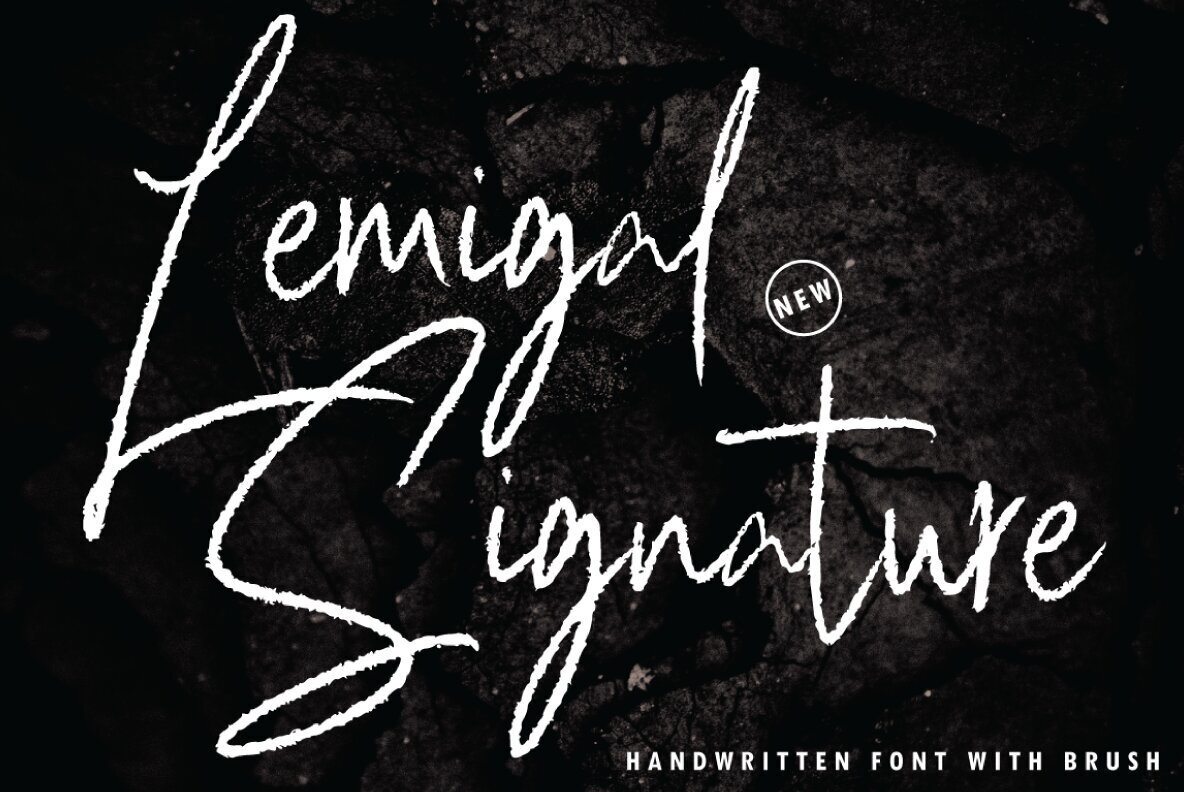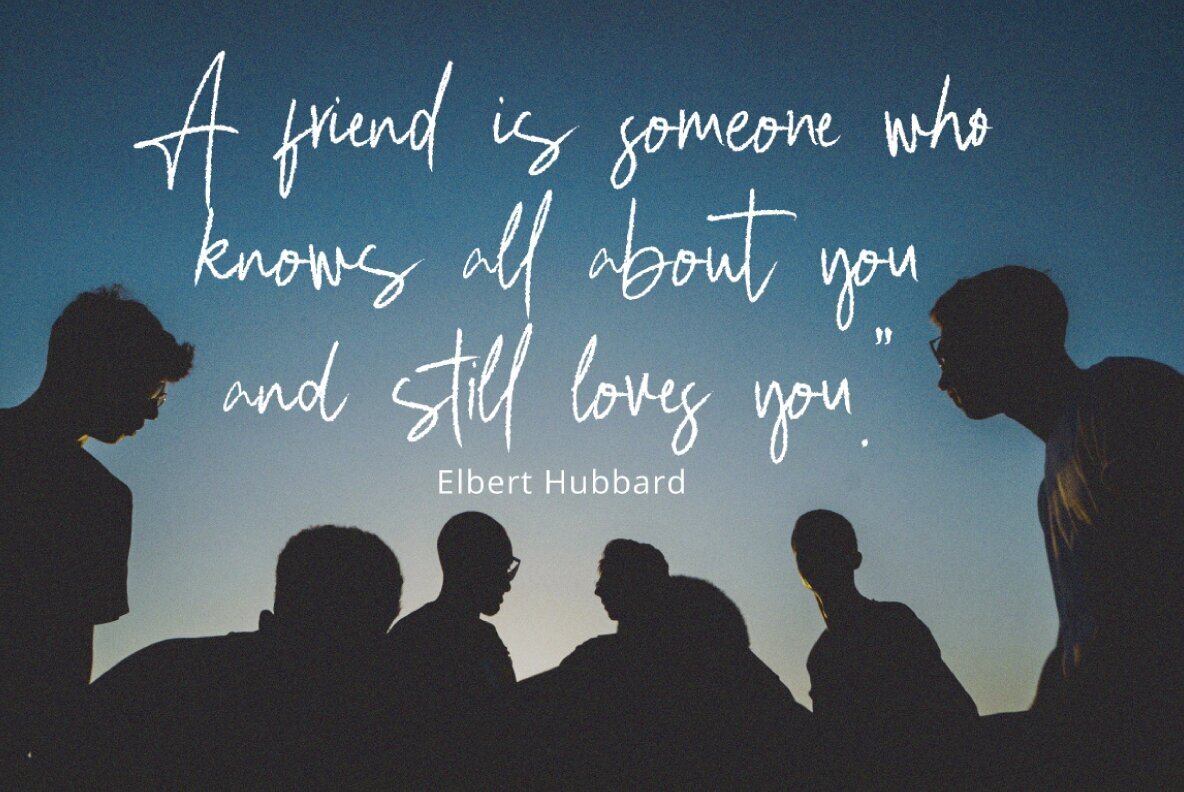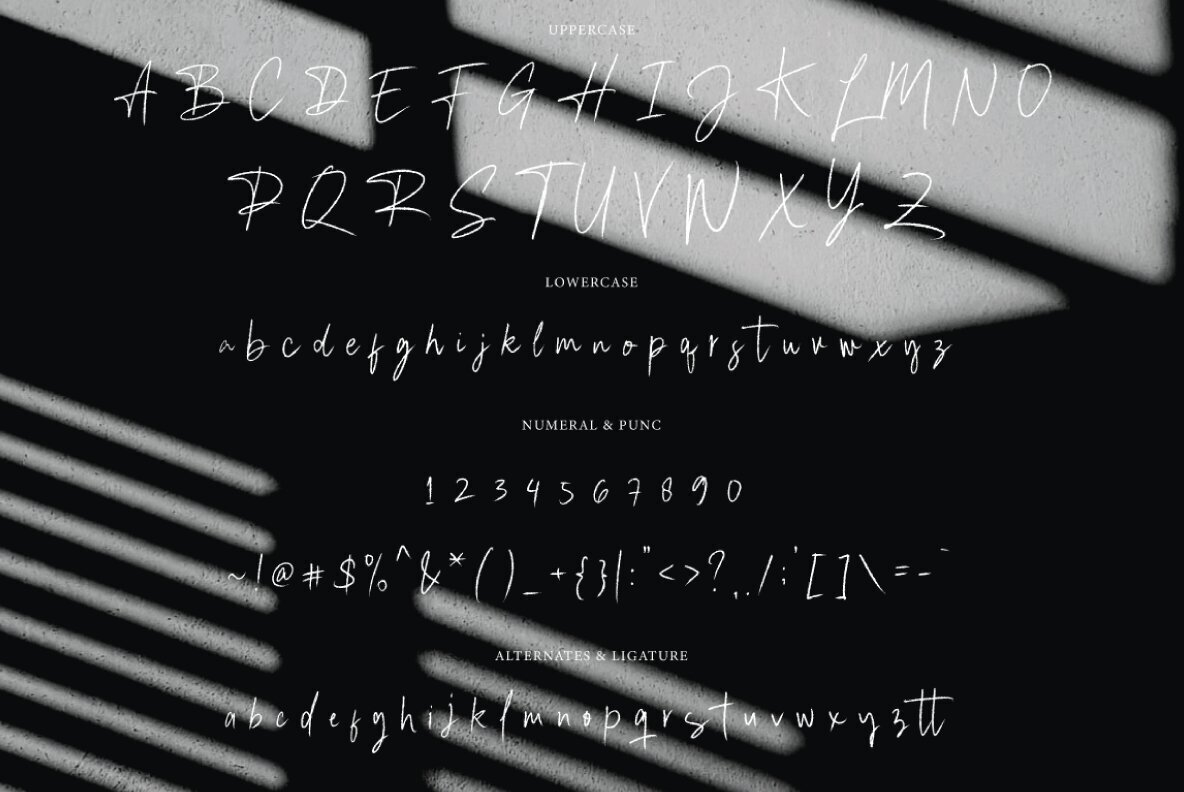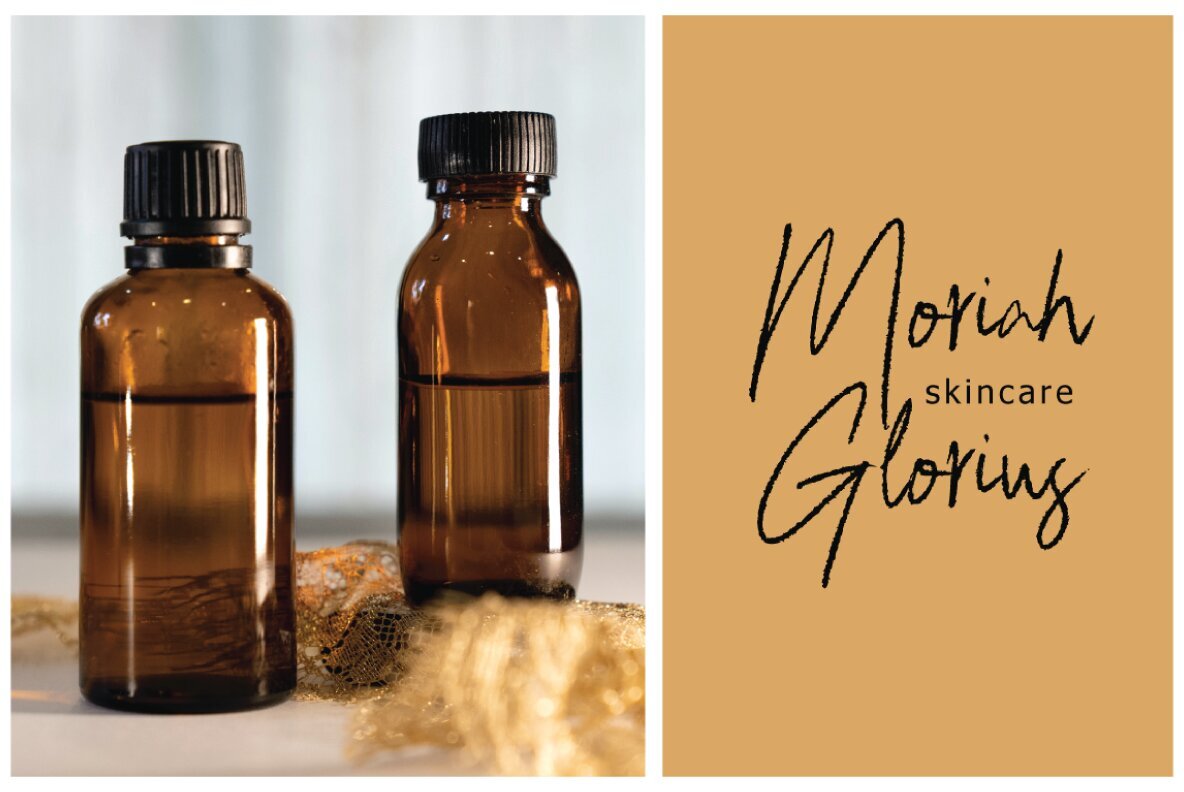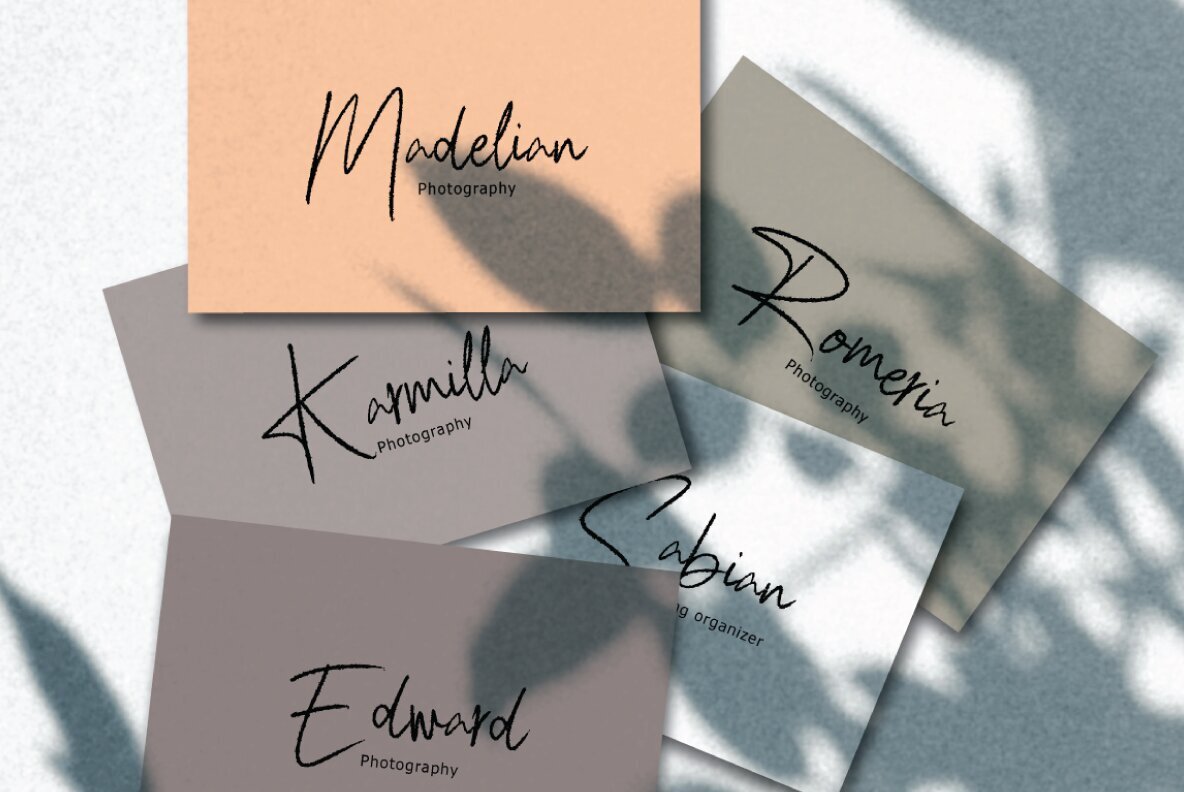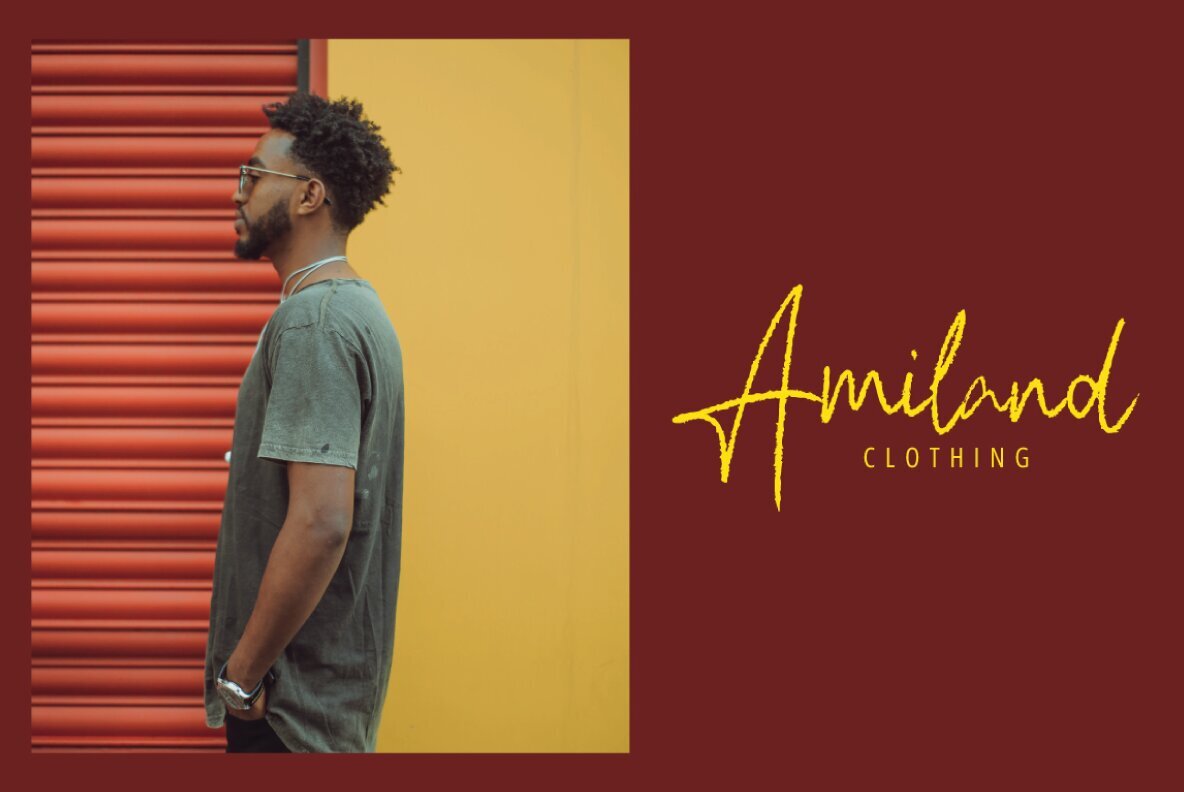
Lemigal Signature Font
Discover the elegance of Lemigal Signature Brush, a handmade cursive font that encapsulates beauty and sophistication. Perfectly suited for greeting cards, branding materials, business cards, and posters, this font infuses a personal touch with its decorative characters and dynamic baseline. With over 200 glyphs, Lemigal Signature Brush allows you to explore endless creative possibilities. Whether you're using Adobe Illustrator, InDesign, Photoshop, or Microsoft Word, accessing alternate characters is seamless. Designers can further elevate their projects with stylistic sets and ligatures, catering to bespoke design needs. For those without OpenType feature support, access alternate glyphs using Font Book on Mac or Character Map on Windows. Lemigal gives every designer the tools to create stunning and personalized designs effortlessly.Lemigal Signature Brush